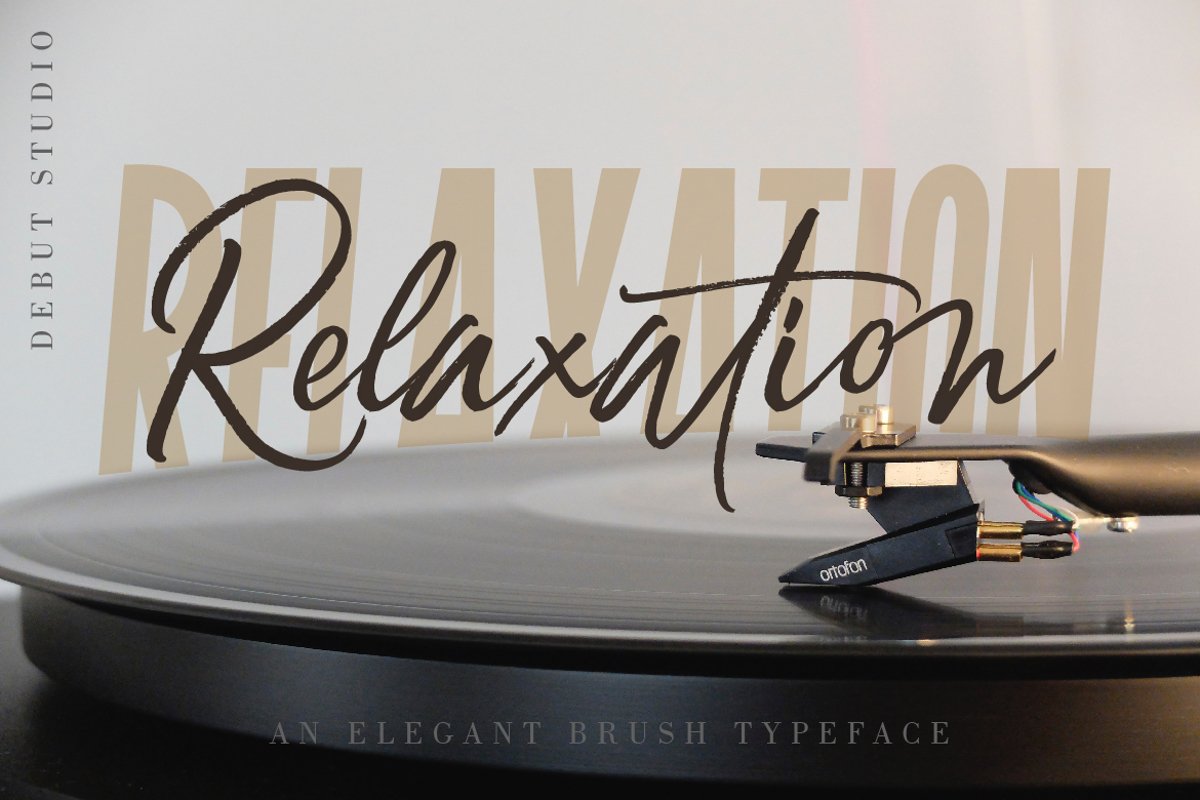
Relaxation // An Elegant Brush
Relaxation Sans
Relaxation
Relaxation is the impressive brush font from the Debut Studio, very suitable for branding, wedding invitations, business cards, book covers, websites, and other design needs.
contains some interesting ligature that will make your writing more natural to be different from the design of people in general.